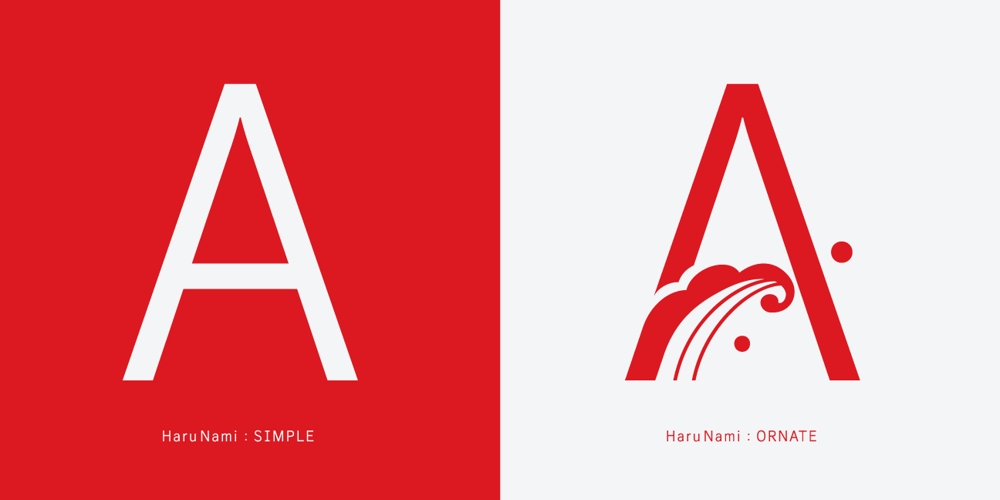
HaruNami
HaruNami font
HaruNami Font Family was designed by Chiharu Tanaka and published by PSY/OPS. HaruNami contains 4 styles and family package options. HaruNami (“spring wave”) fuses Japanese ornamentation with the Roman alphabet. All the motifs in the typeface are based on traditional Japanese wave ornamentation. HaruNami has a unique stylistic system that ranges from Simple to Ornate. The Simple font is a purely functional sanserif that is ready to use as text type. The three other styles, Decorative, Embellished and Ornate, progressively apply the wave ornamentation to the capital letters. HaruNami Complete ships as a unified OpenType font, and as a set of individual fonts. If you’re using an application that supports OpenType features, we recommend using the Unified font. The three decorated styles will be accessible as feature sets. Otherwise, you can install the individual fonts and use them in any application. (It is also all right to install the Unified and individual fonts simultaneously.)